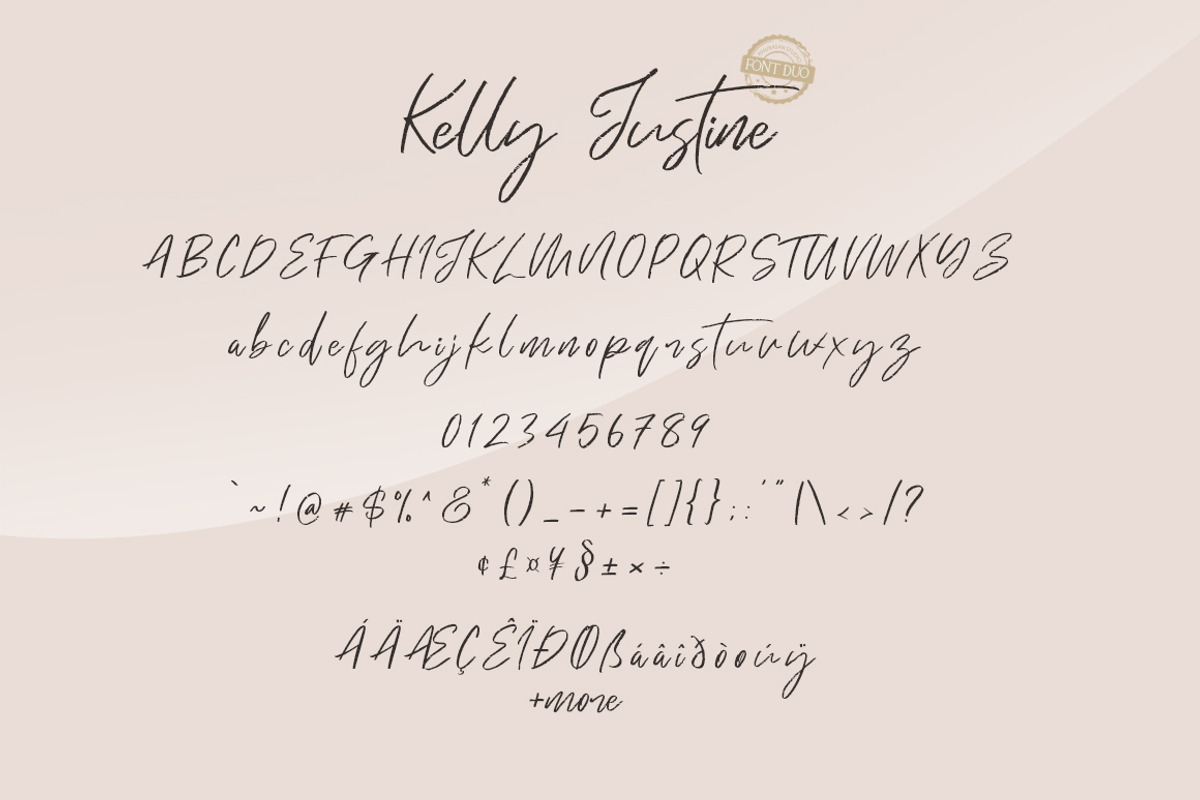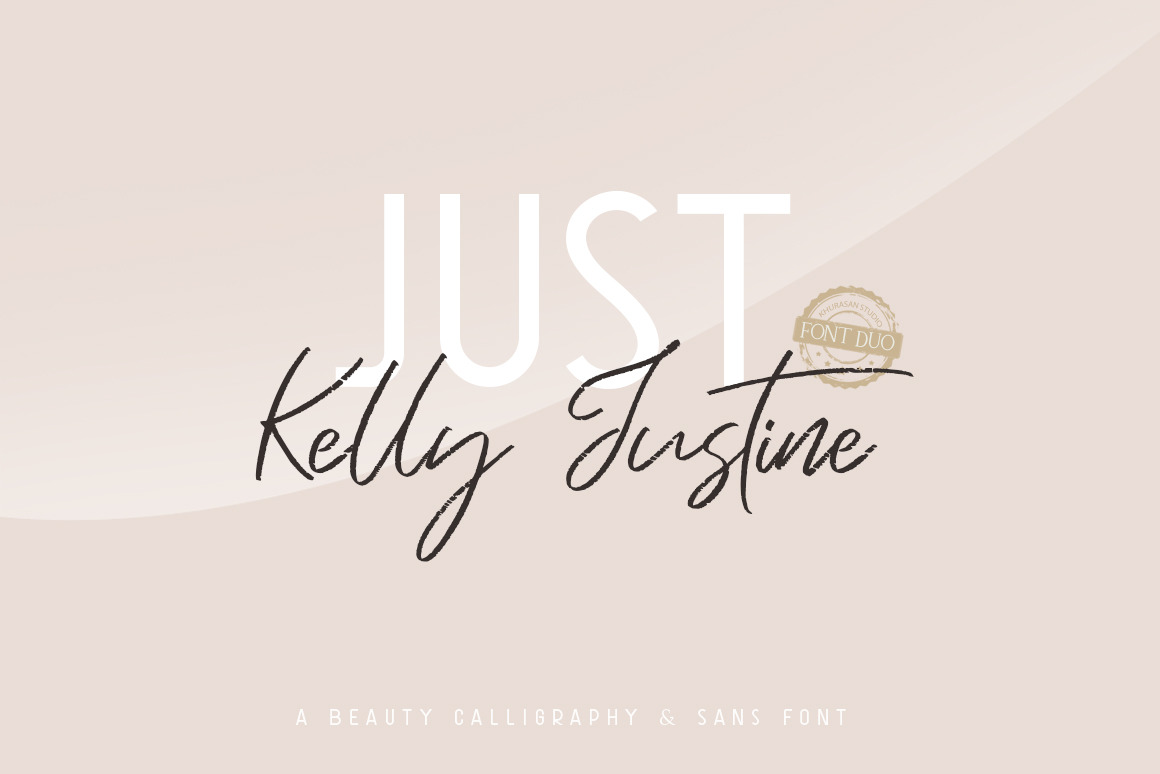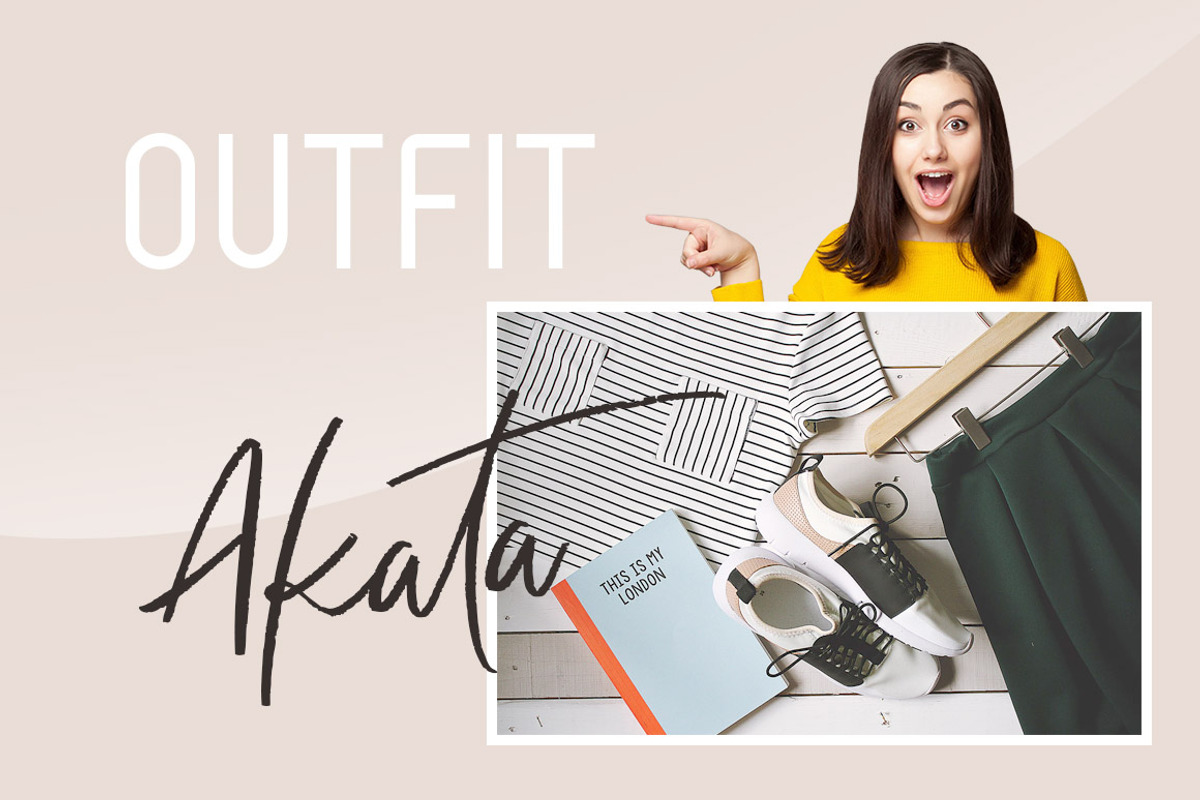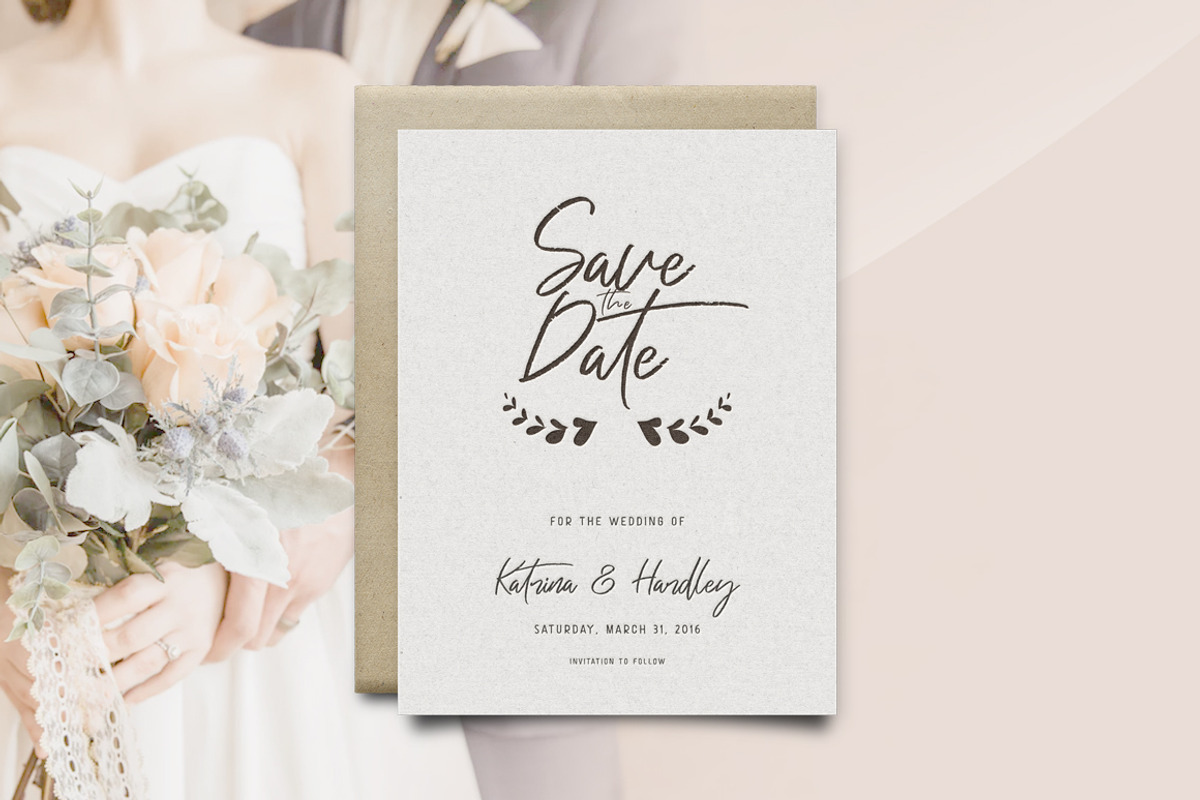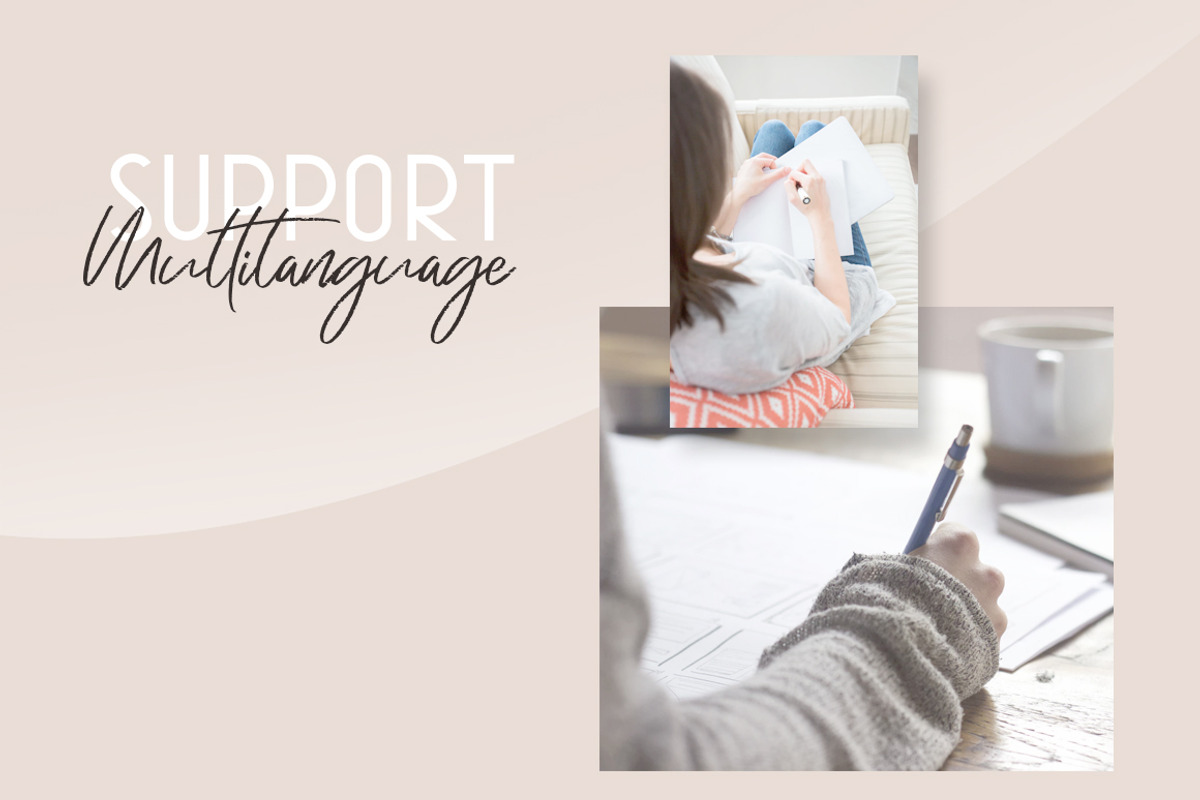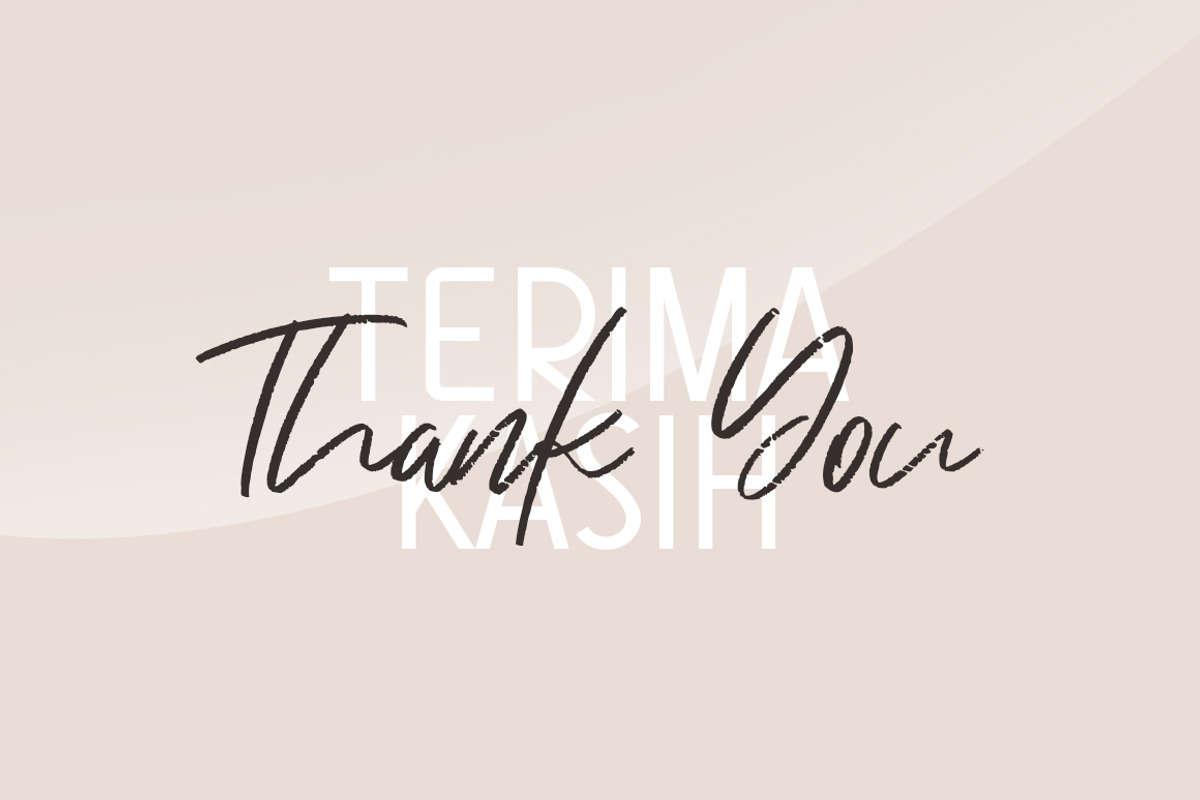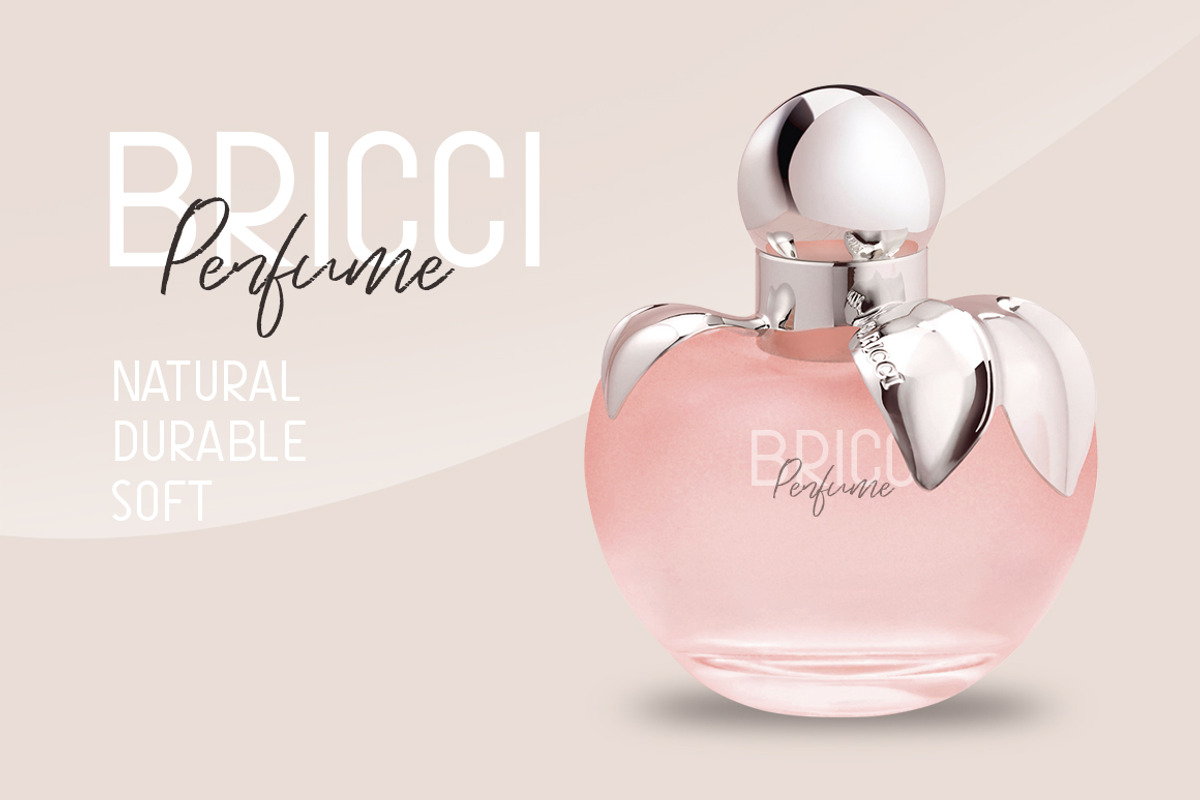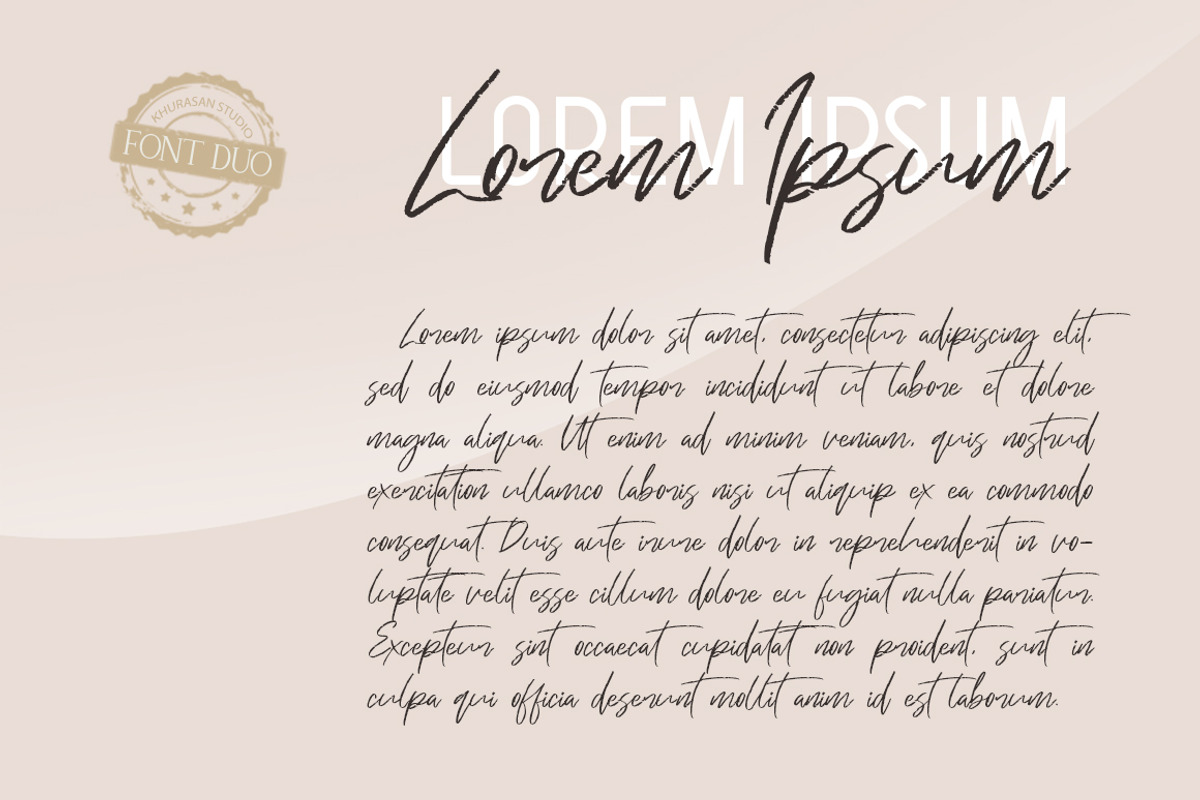
Just Kelly Justine Font Duo
The Just Kelly Justine Font is a fun modern script font, fresh & modern style with Sans font. You can combine script and sans to get amazing results. Just Kelly Justine Font suitable for logo, branding, greeting card, poster and any design that you create.